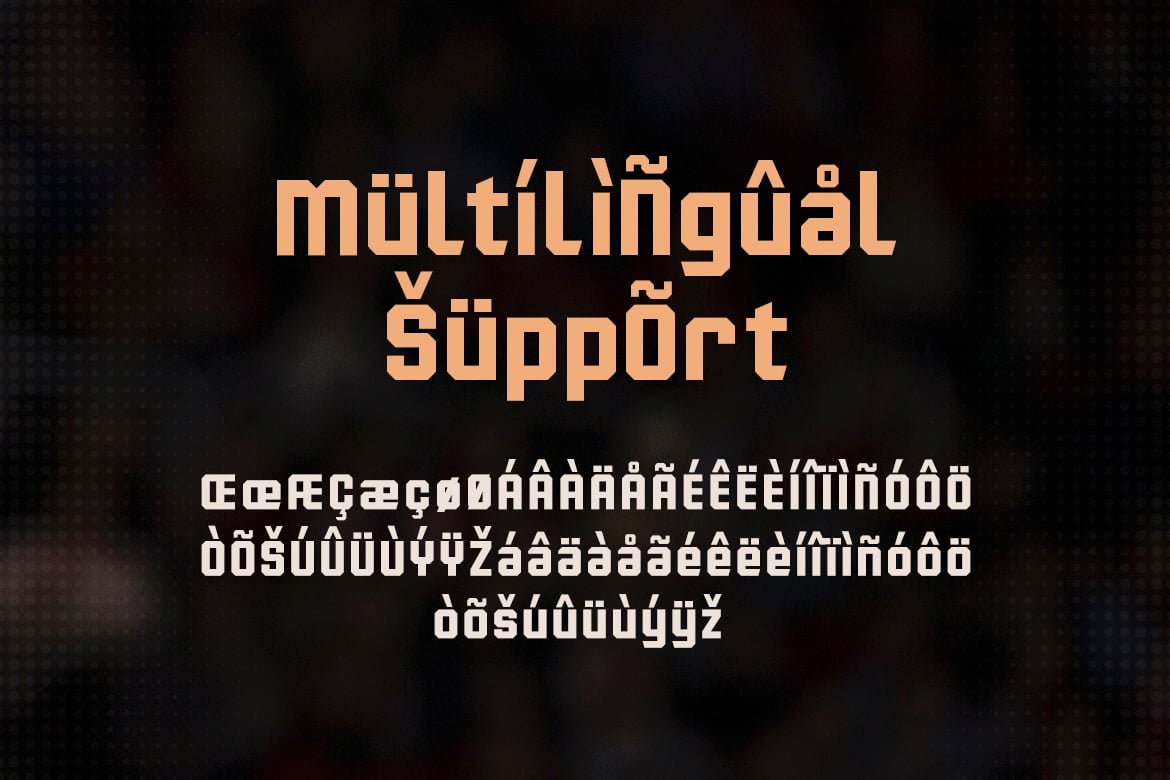
Marines – Sport Display Typeface
Marines is a sport display typeface.
The font is ready to be used for your sport related projects .
Built to be perfect for headlines, jerseys, logos, branding, posters, packaging, advertising, and much more.